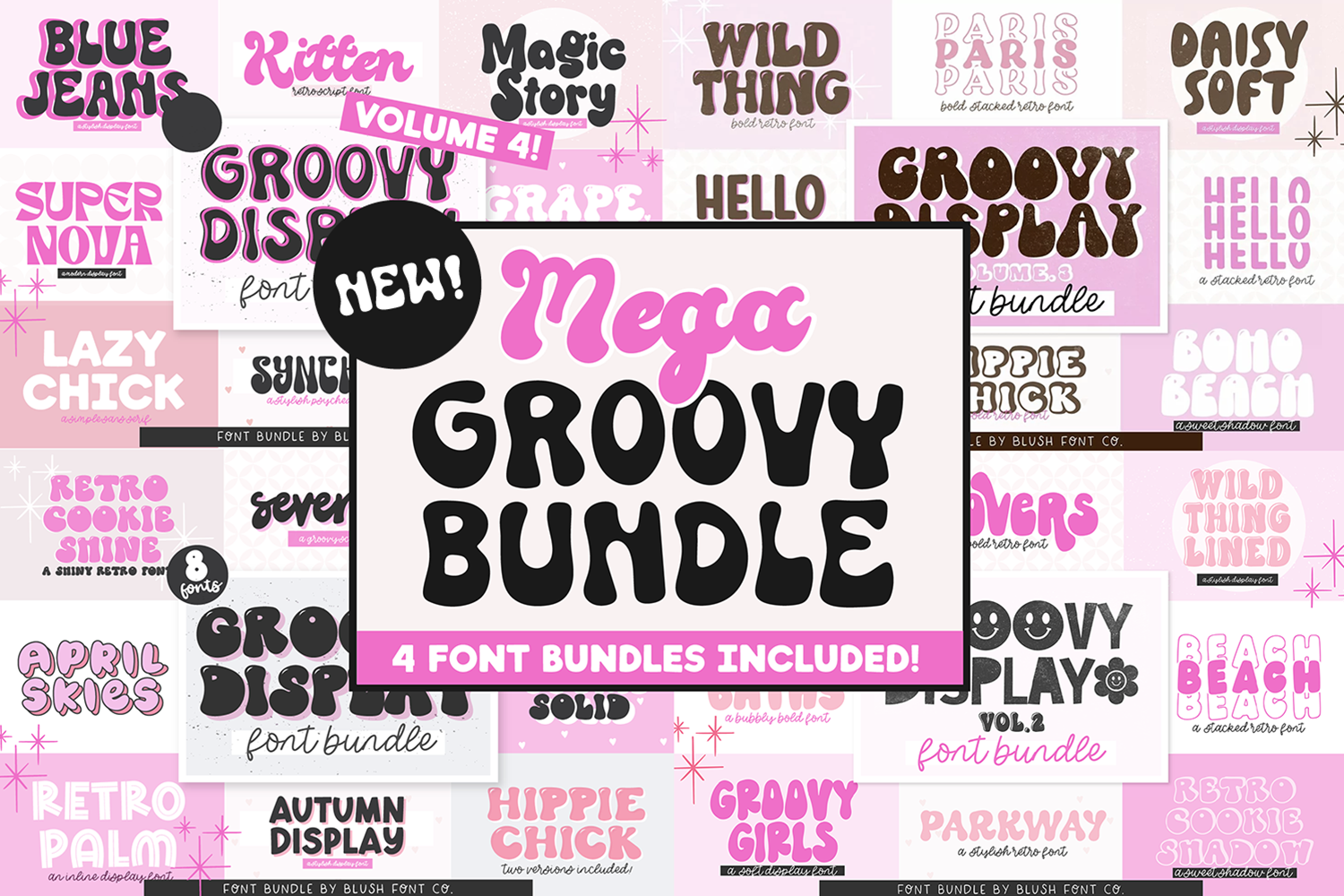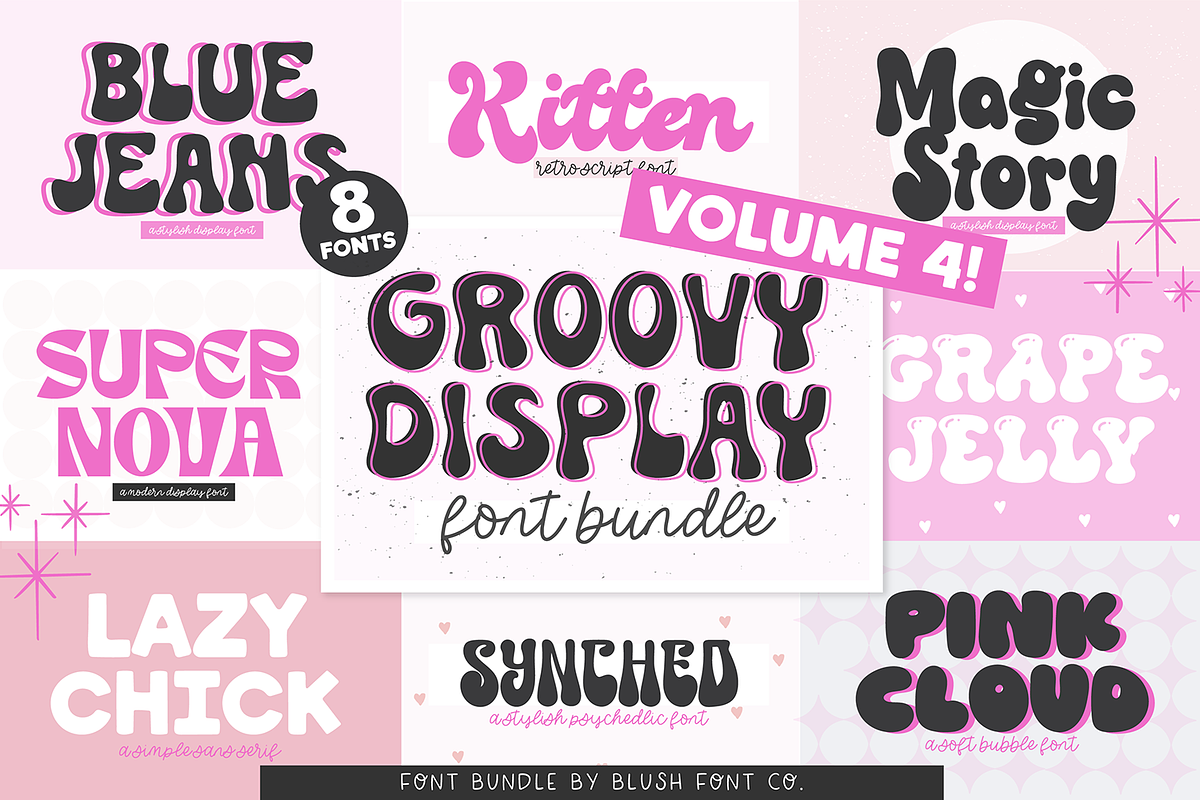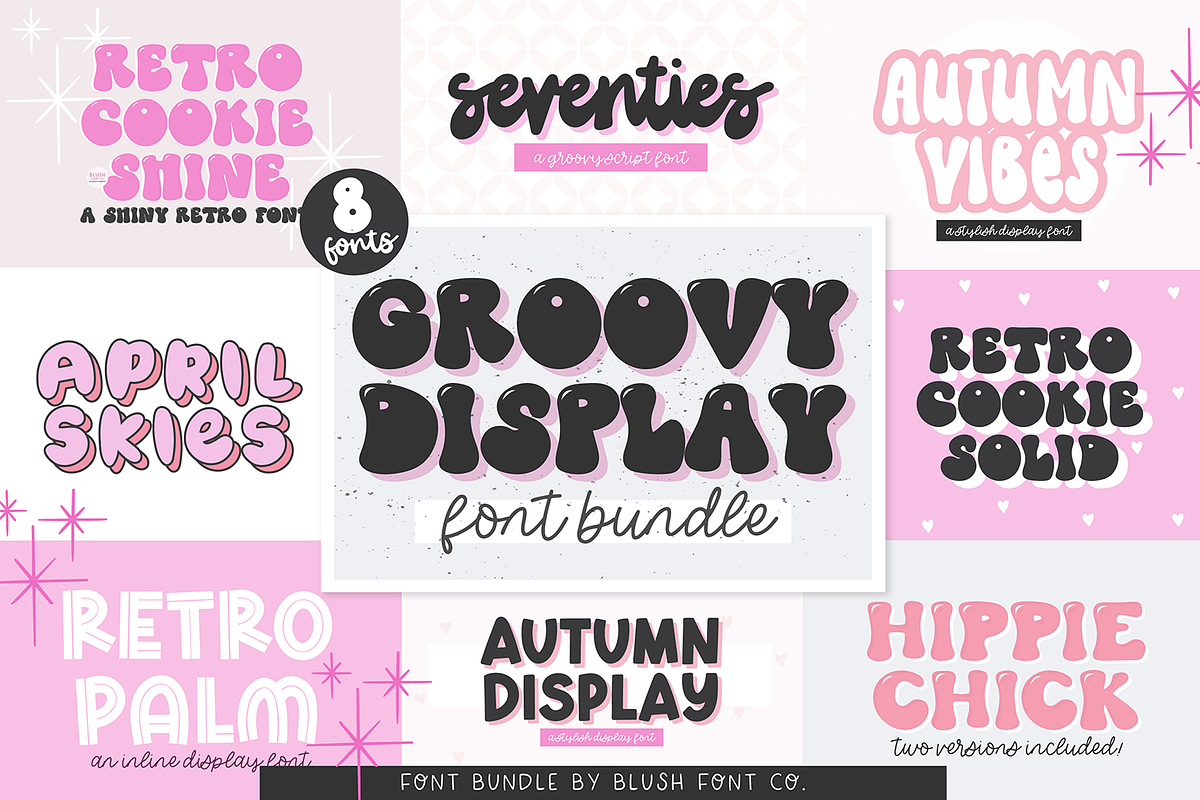
MEGA GROOVY RETRO FONT BUNDLE
MEGA Groovy Display Font Bundle - Retro Font Bundle This groovy font bundle includes all 4 previously released Groovy Display Font Bundles. 32 fonts included!
This font bundle is full of style! These are perfect for procreate, t-shirt design, birthday parties, and more!